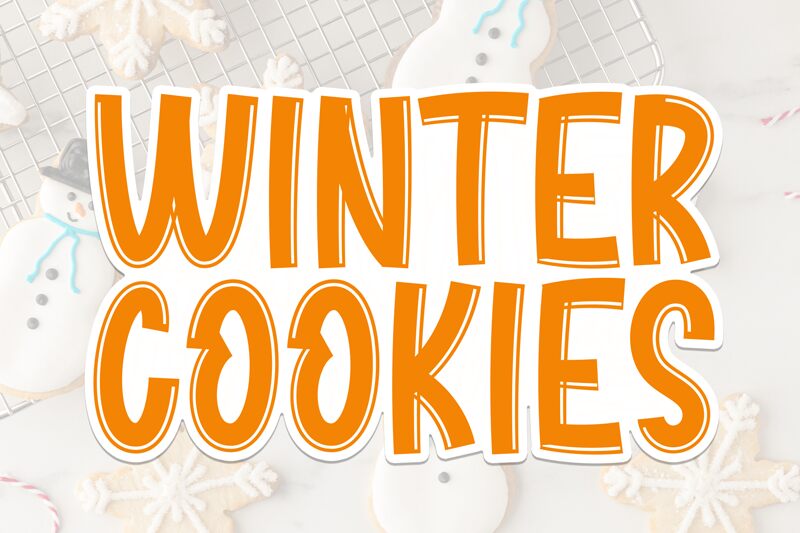
Winter Cookies
Winter Cookies font by Scratchones is a display font inspired by cookies and winter holiday decorations. The cartoon style is achieved through rounded fluid shapes and the condensed width delivers a modern compact look. Each character is uniquely styled to deliver maximum joy for viewers. Bold style fonts generally perform as they stand out on all design matter.
Designers will enjoy implementing this free font in children's books, kindergarten decoration signs, educational materials, and classroom posters. Use it in packaging products such as paper cups, plates, or napkins. Who said kids only? Go ahead and incorporate this typeface in graphic projects to target adults and teenagers!